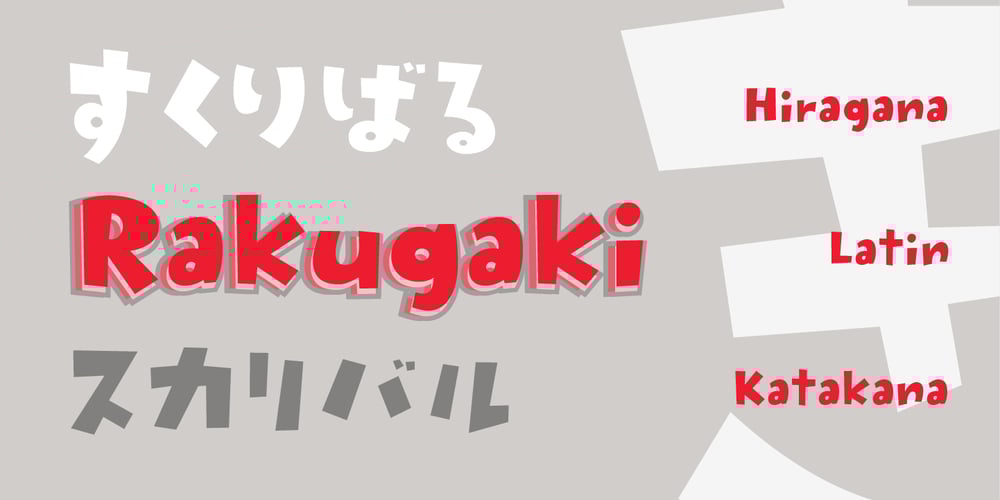
P22 Rakugaki
P22 Rakugaki font
P22 Rakugaki Font Family was designed by Hajime Kawakami and published by P22 Type Foundry. P22 Rakugaki contains 1 styles and family package options. Rakugaki means “scribble” in Japanese. This font expresses casual handwriting with warmth and simplicity. The bold weight of Rakugaki is harmoniously integrated in all three writing systems, Katakana, Hiragana and Latin. The enclosed key charts give instructions for character placement in Katakana and Hiragana.